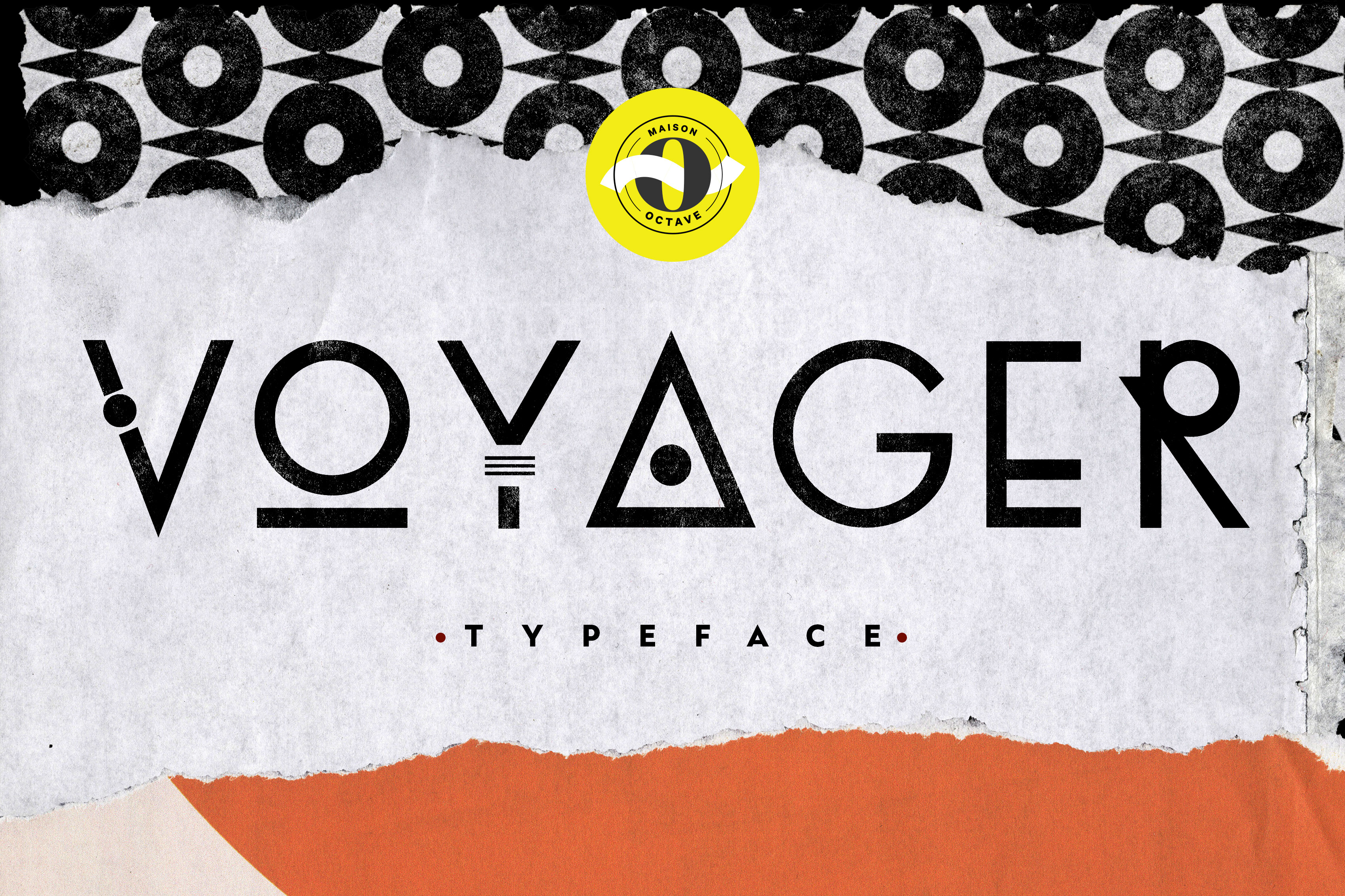
Voyager Font
Buckle up and be ready for some serious space exploration!
This font perfectly represents the vintage space age aesthetic in a modern and minimalist way. It includes uppercase letters, numbers & special characters.